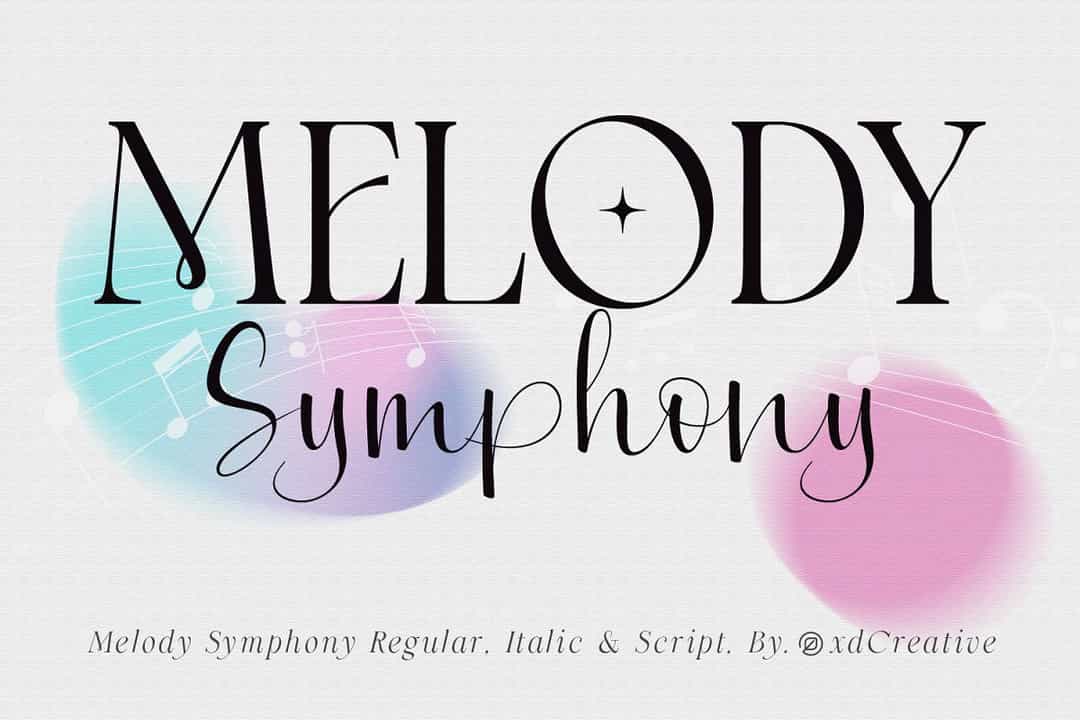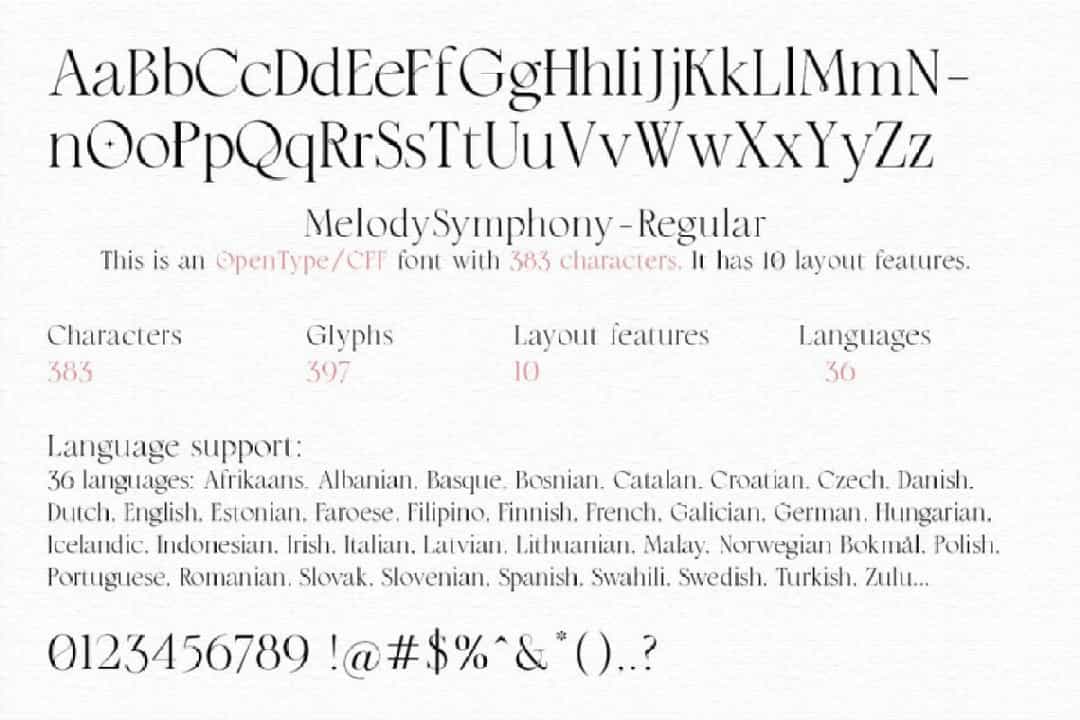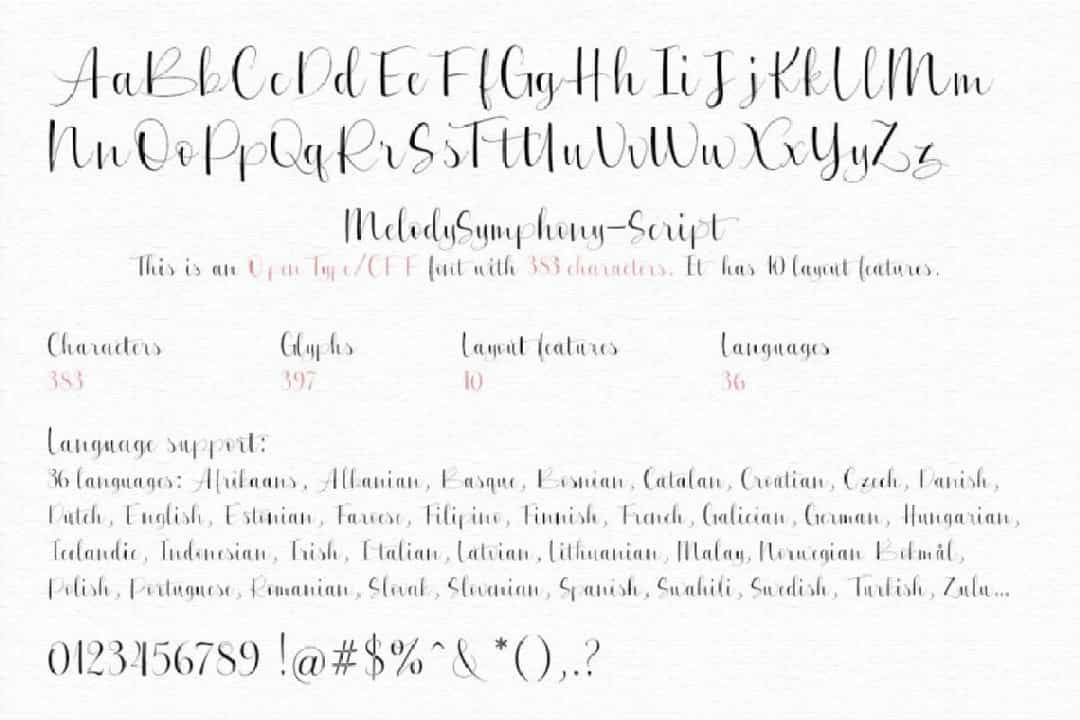
Melody Symphony Font Duo is a contemporary feminine serif, boasting an elongated construction and anatomical structure combined with hand drawn contemporary calligraphy in “Symphony”. Perfect for all your design requirements.